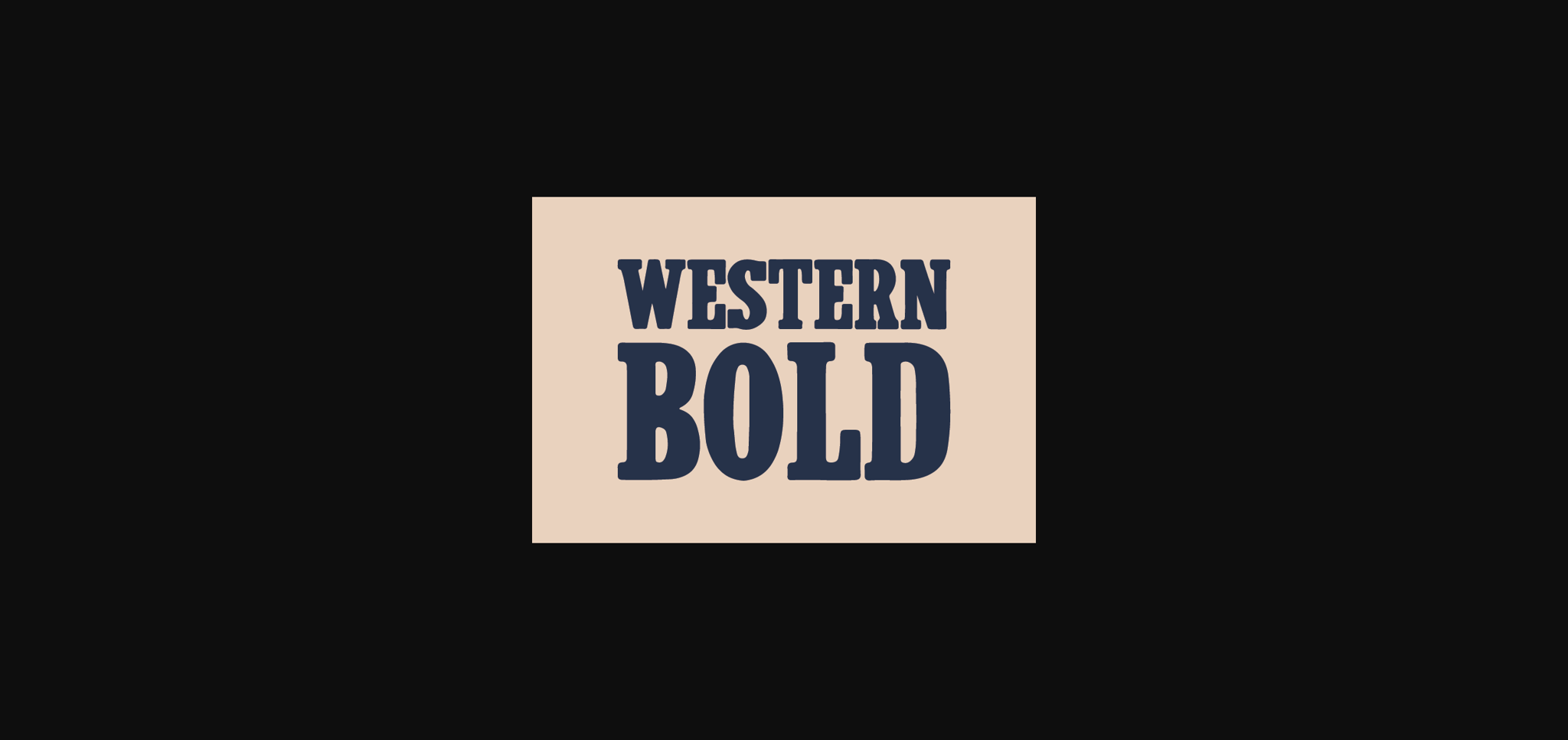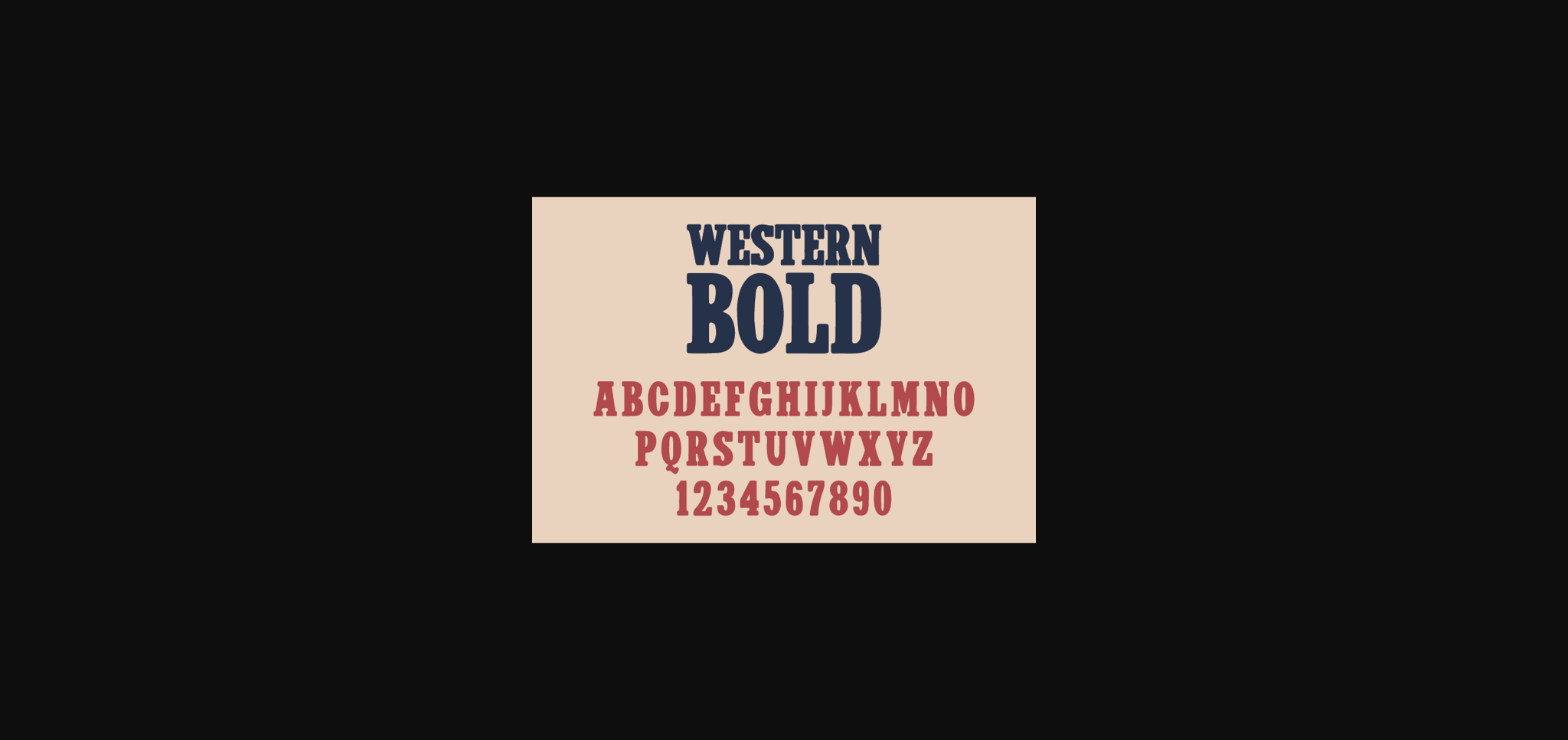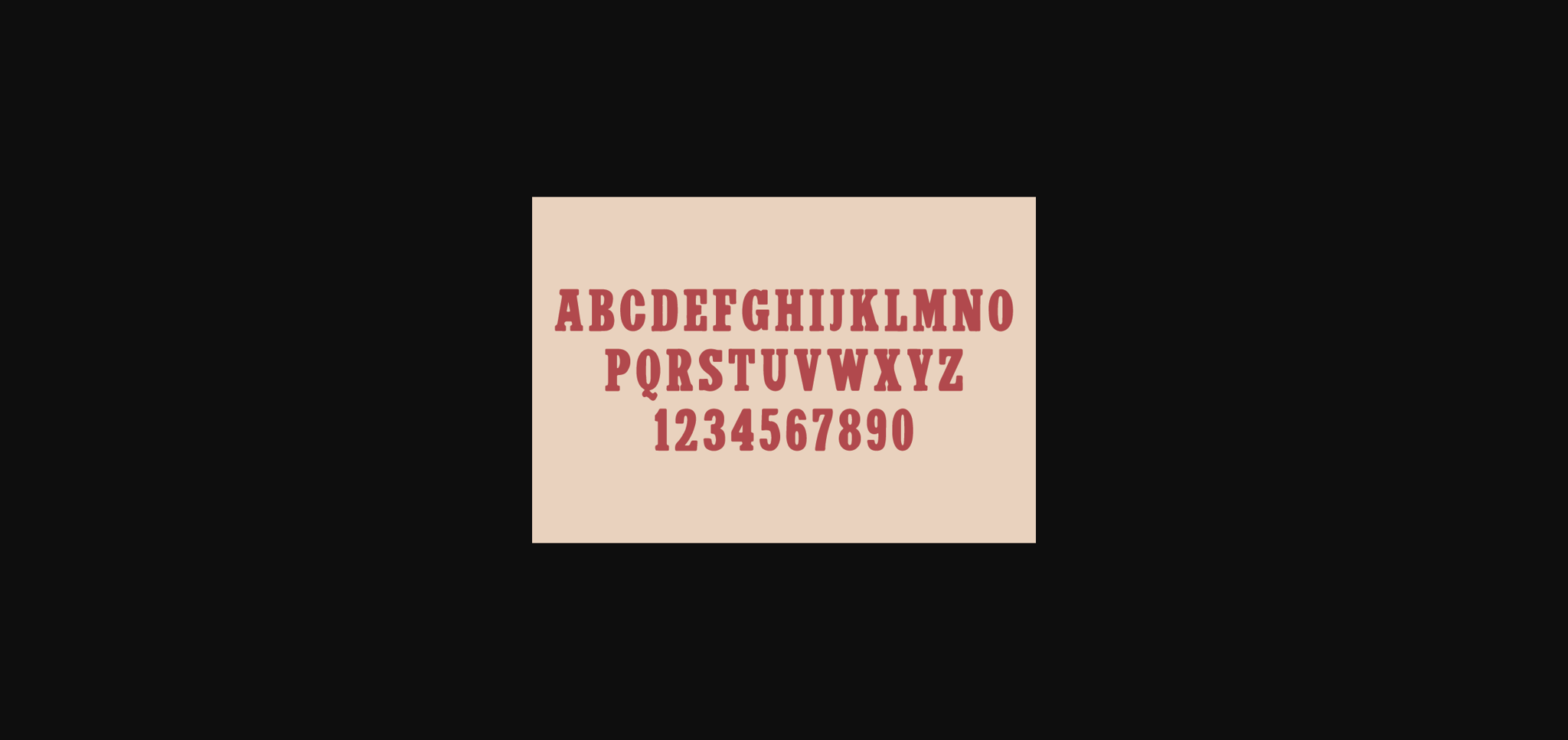
About Western Bold Font
Western Bold is a simple Western-style serif bold font designed for a clean retro look. With its vintage balanced proportions, this font is perfect for creating a minimalist aesthetic in logos, web design, and branding.